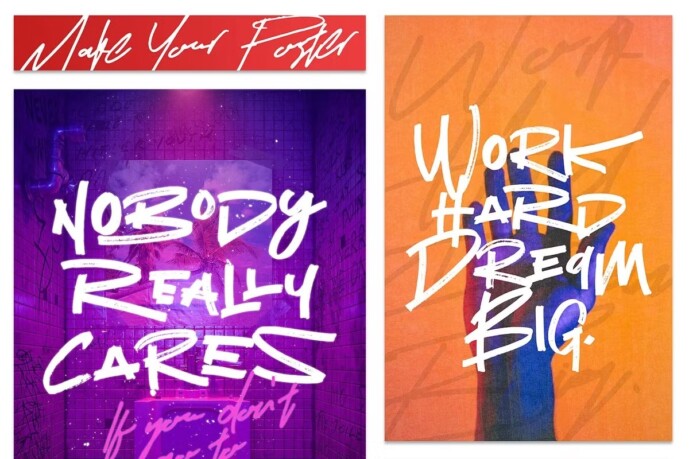
Network Font
Network Font! It’s called Network Fonts and Extras for your lifestyle rather than your designs. Network font, carefully selected from hundreds of letters. Signature-styled Network Script perfectly fits next to the Network Font. Besides all this, the Network Swashes Font is designed to customize your designs.